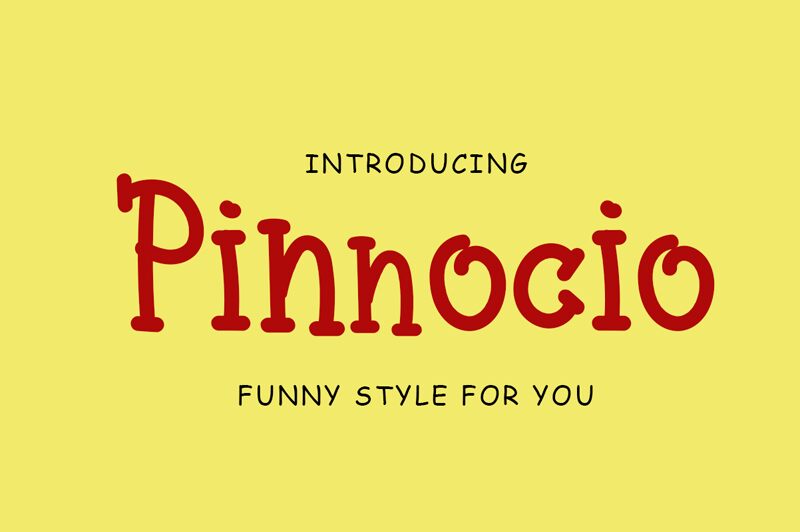
Pinnocio
Pinnocio is a captivating display font that exudes a delightfully whimsical charm. Crafted with a distinctive cartoon-inspired style, this font's bold, expressive strokes and quirky character shapes immediately grab attention. The condensed width lends a compact, playful quality, while the overall aesthetic evokes a sense of childlike wonder and imagination.
Pinnocio's playful personality makes it an ideal choice for a range of design applications, from children's storybooks and packaging to eye-catching branding and advertising.
Whether used as a standalone statement or combined with complementary typefaces, this font's unique flair is sure to infuse any project with a touch of playful sophistication. Pinnocio's versatility and visual appeal make it a standout choice for designers seeking to bring a touch of whimsy and character to their work.